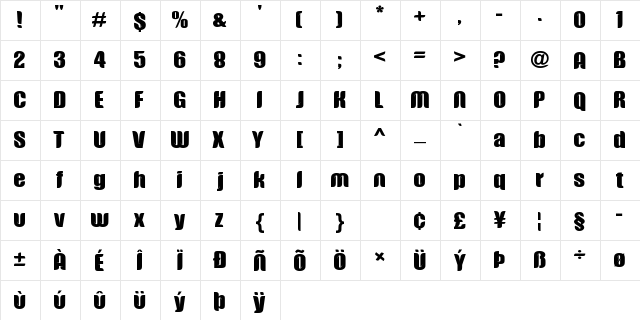
SAKALANGKONG Bold
| Designer | ZetDesign 2020 (Ahmad Zulfikar Ali) |
Design Context for SAKALANGKONG Typeface
SAKALANGKONG offers clean, dependable letterforms without strong stylistic allegiance, making it a practical choice for designers who need flexibility. Its bold stroke weight gives it real presence on the page.